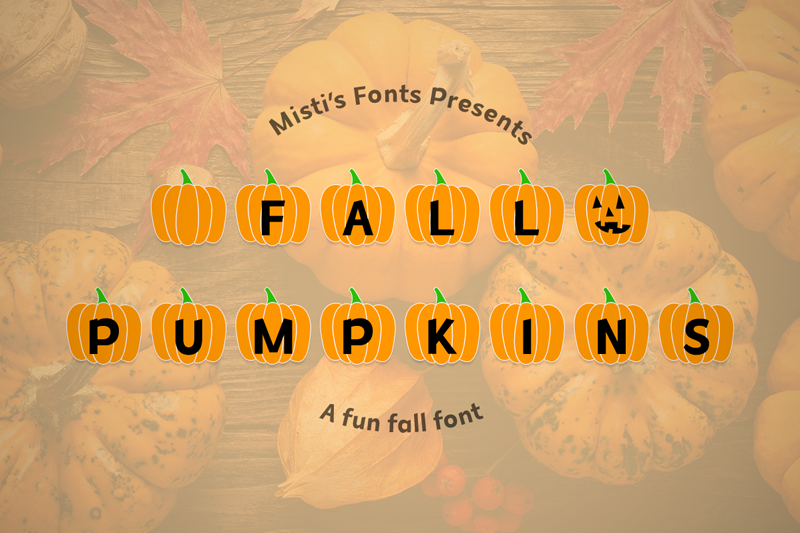
Font name: | MF Fall Pumpkins |
Fall Pumpkins is a super festive font perfect for your Autumn projects! It is perfect for creating cute monogramed mugs, seasonal banners, sublimation projects and so much more! Terms Of Use and Commercial Licensing: https://mistifonts.com/mf-fall-pumpkins/ |